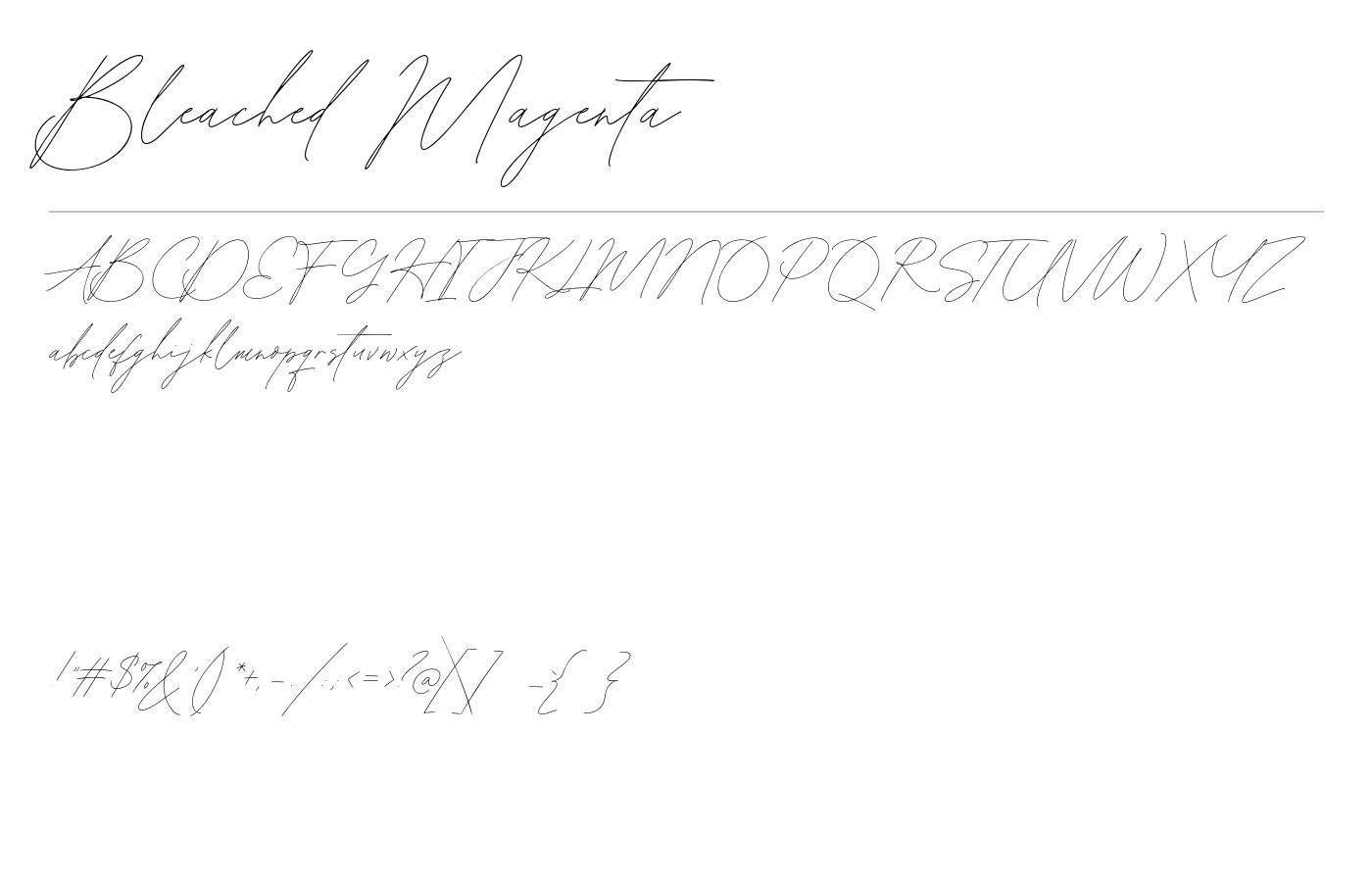
Bleached Magenta is a delicate, handwritten script font that features fine, flowing lines with an elegant and airy sophistication. Its thin strokes and naturally irregular letterforms give it a graceful, personal touch, making it perfect for stylish invitations, branding, and editorial designs where a refined, artistic feel is desired. This font works beautifully in creative contexts that call for a soft, intimate, and modern handwritten look.
Bleached Magenta Font
About Bleached Magenta Font
| Font family | Bleached Magenta Font |
| Languages supported | Latin, Symbols, Myanmar, Greek |